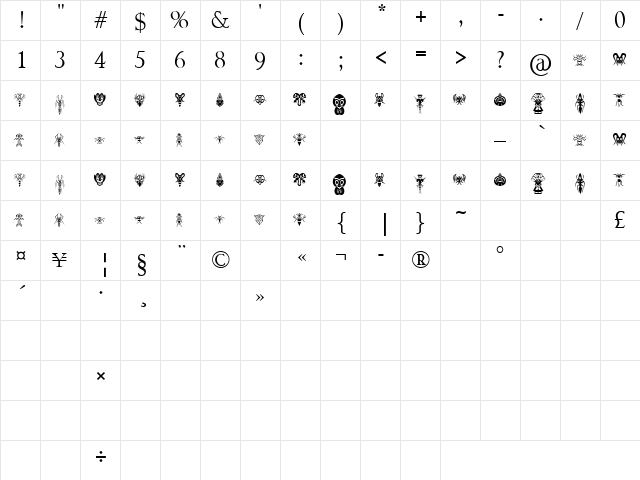
Abstract Alien Symbols Regular
Design Context for Abstract Alien Symbols Typeface
Abstract Alien Symbols is a composed and adaptable typeface that performs quietly and consistently across a wide range of design contexts.
Pro Tip: Use Abstract Alien Symbols in both headline and body roles to test its range before committing to a single application.